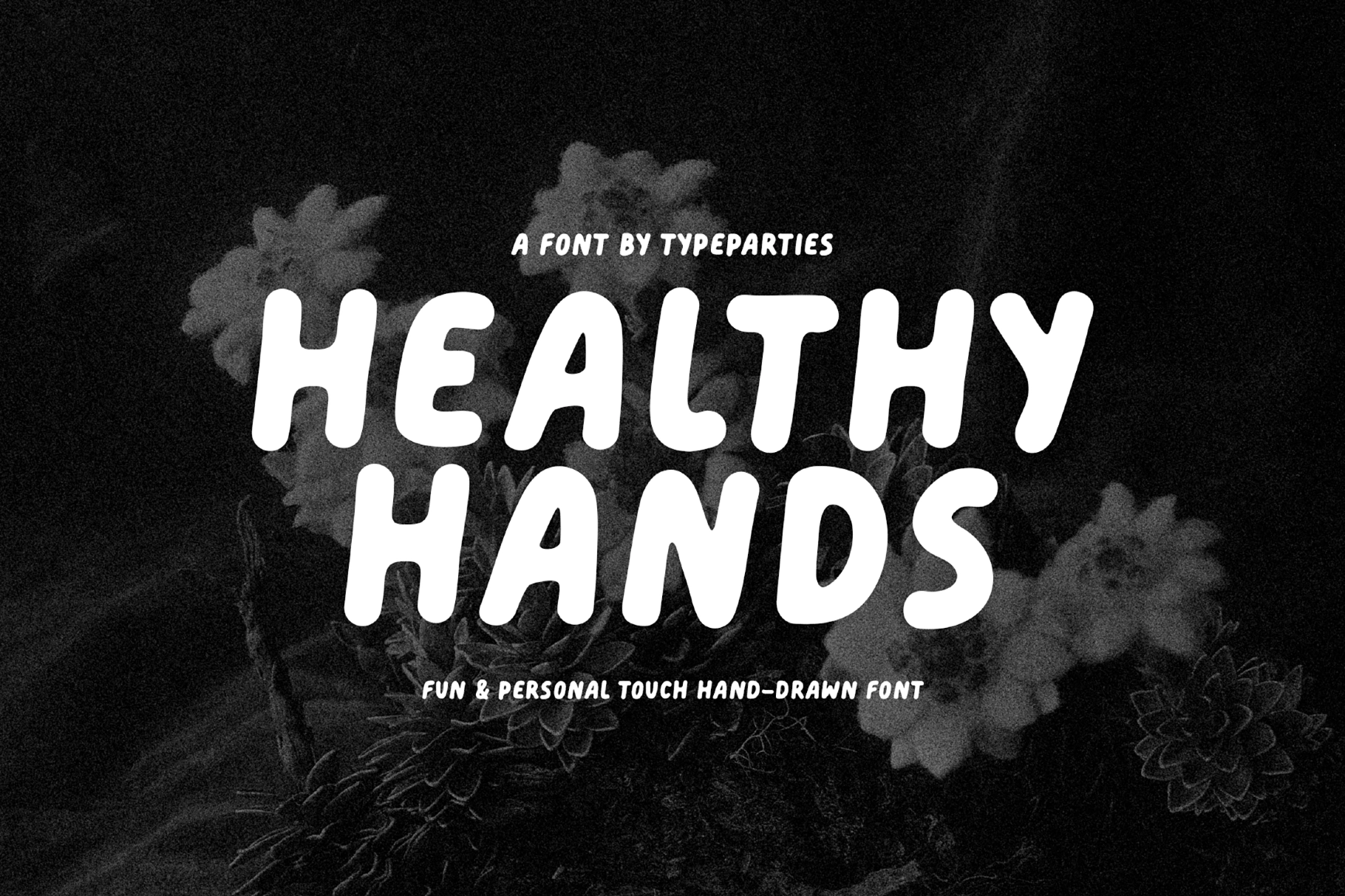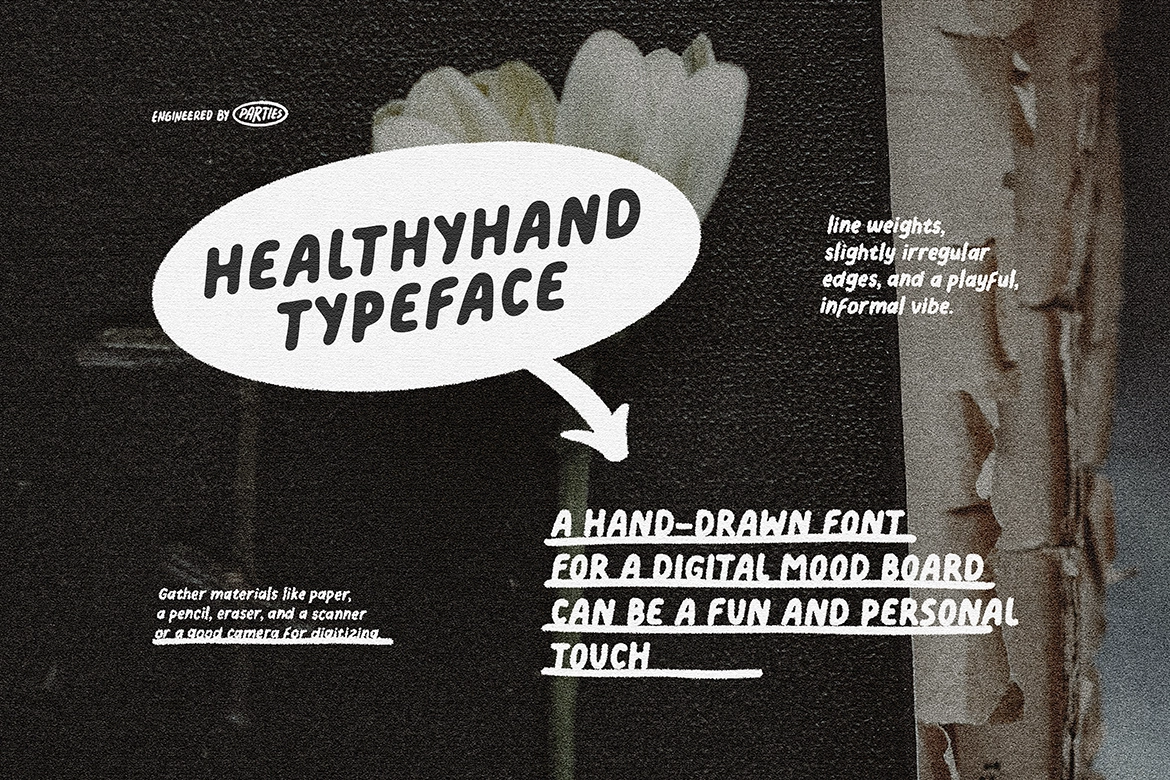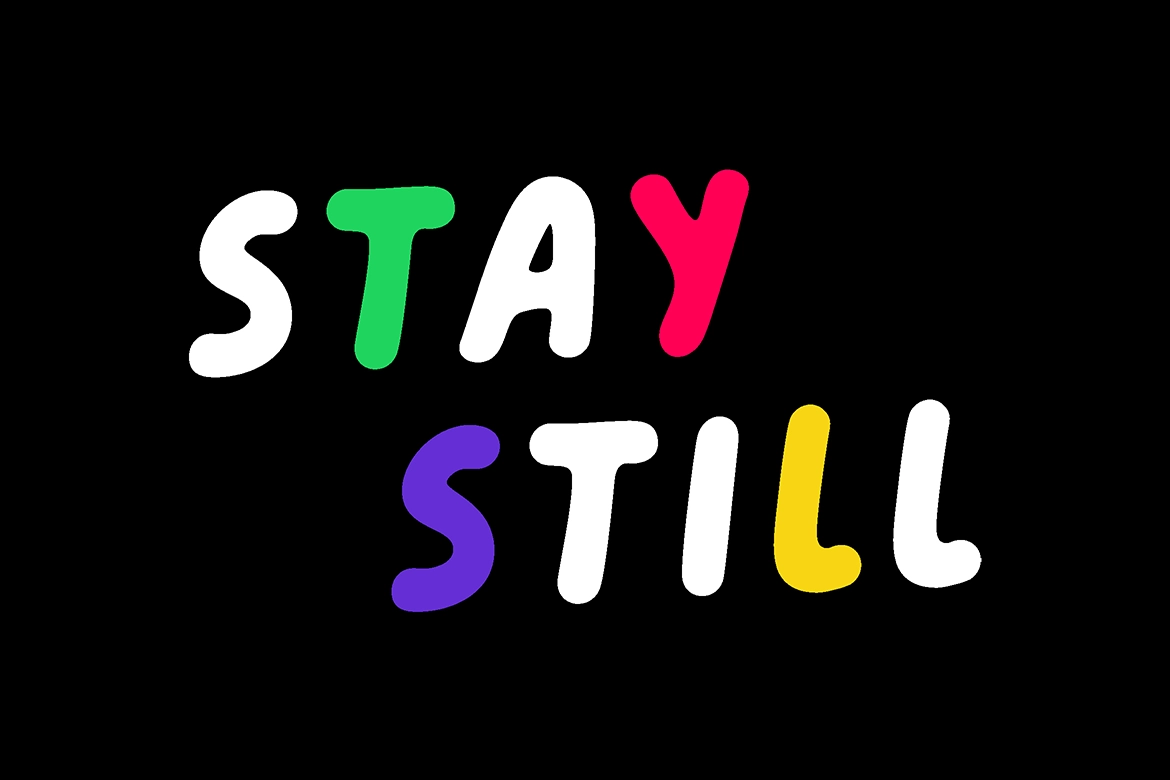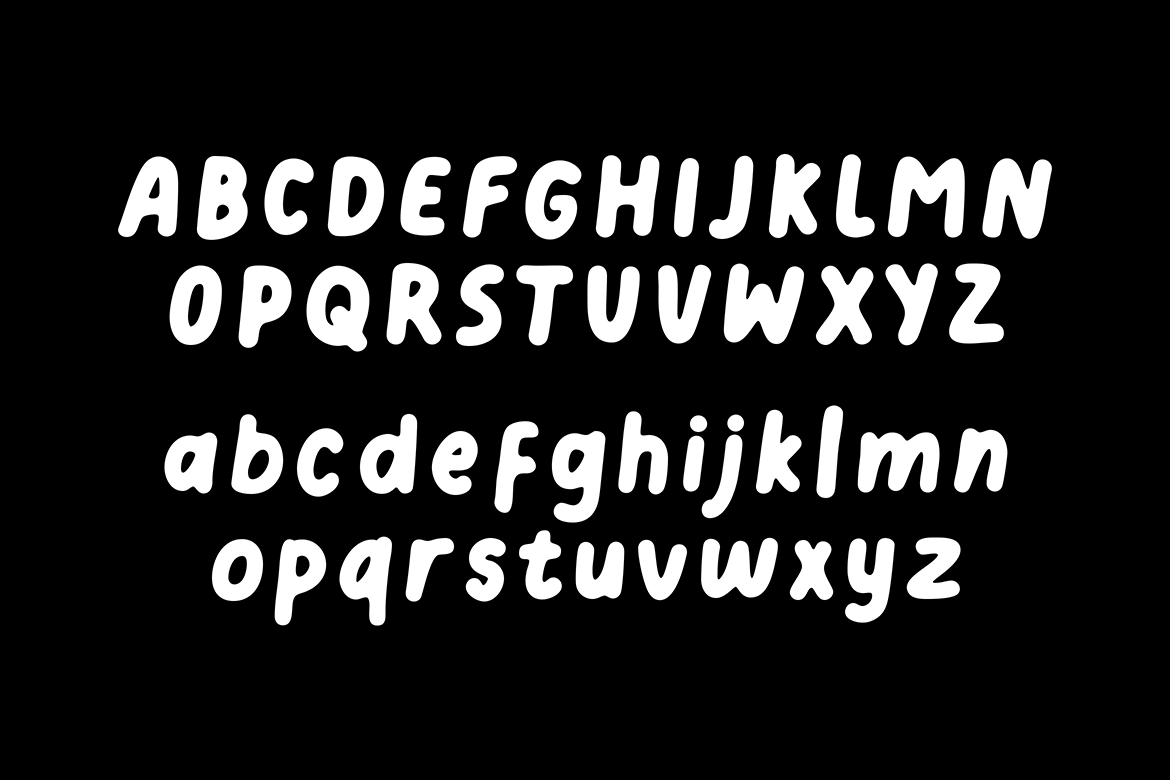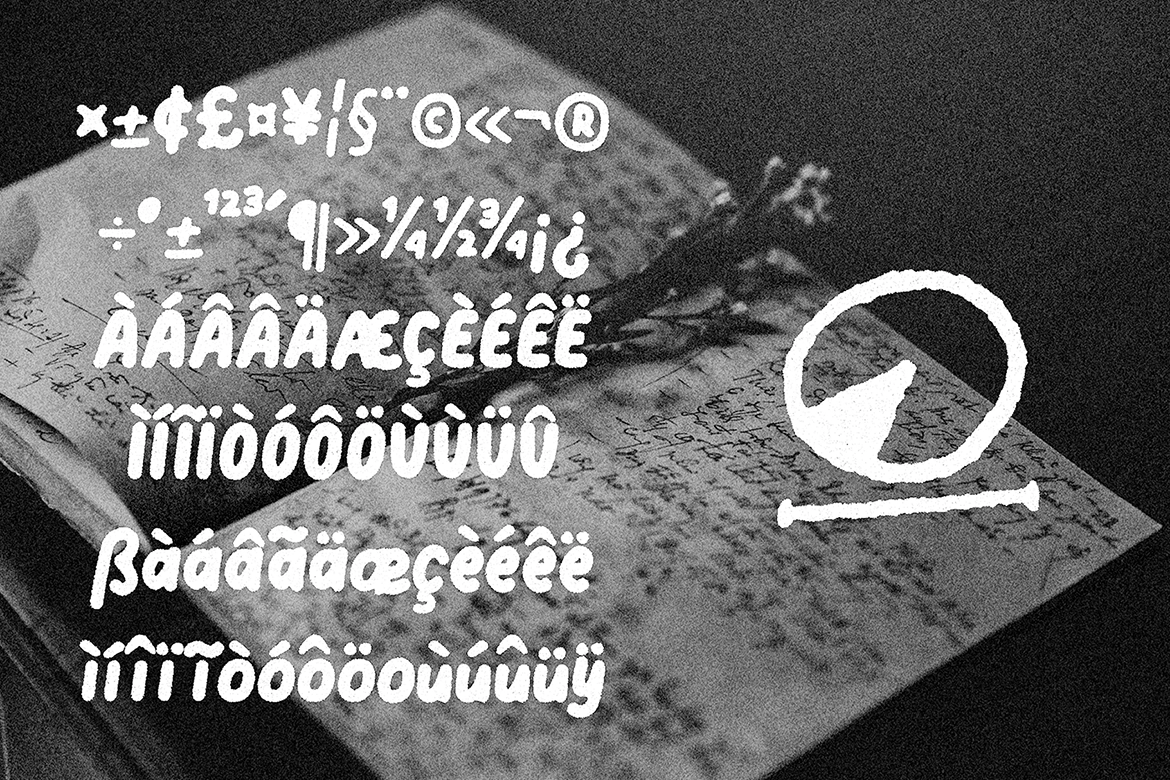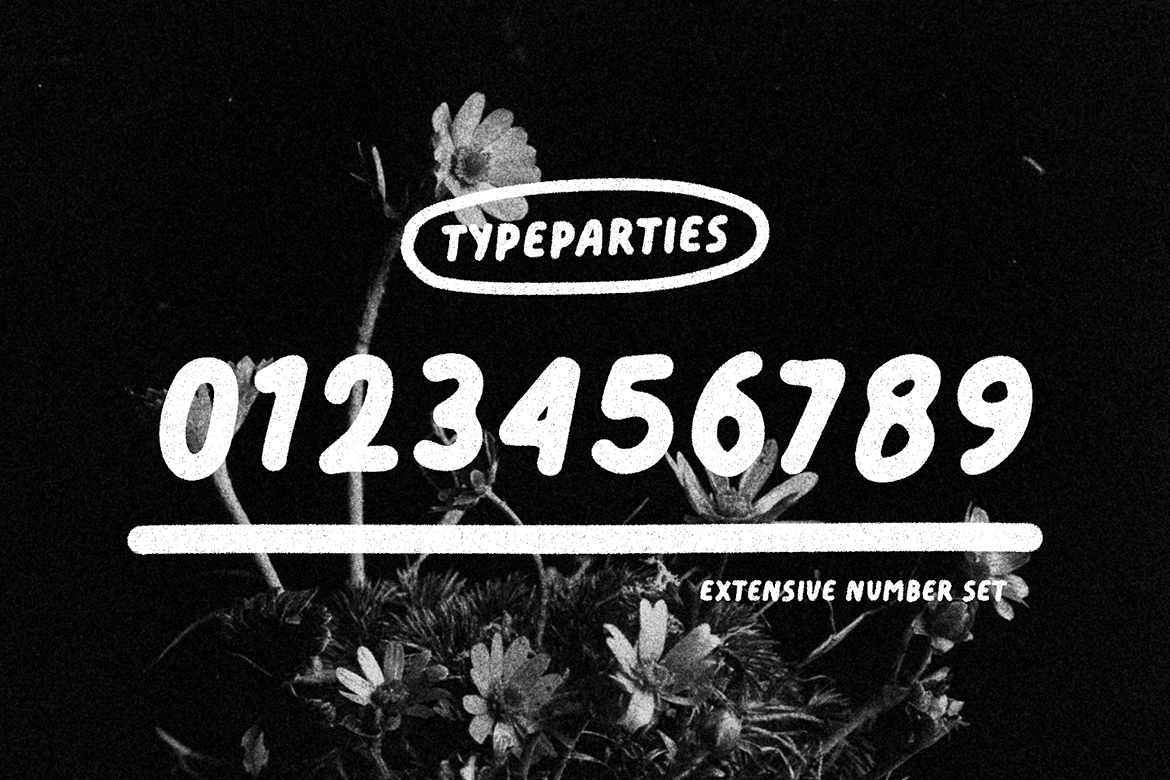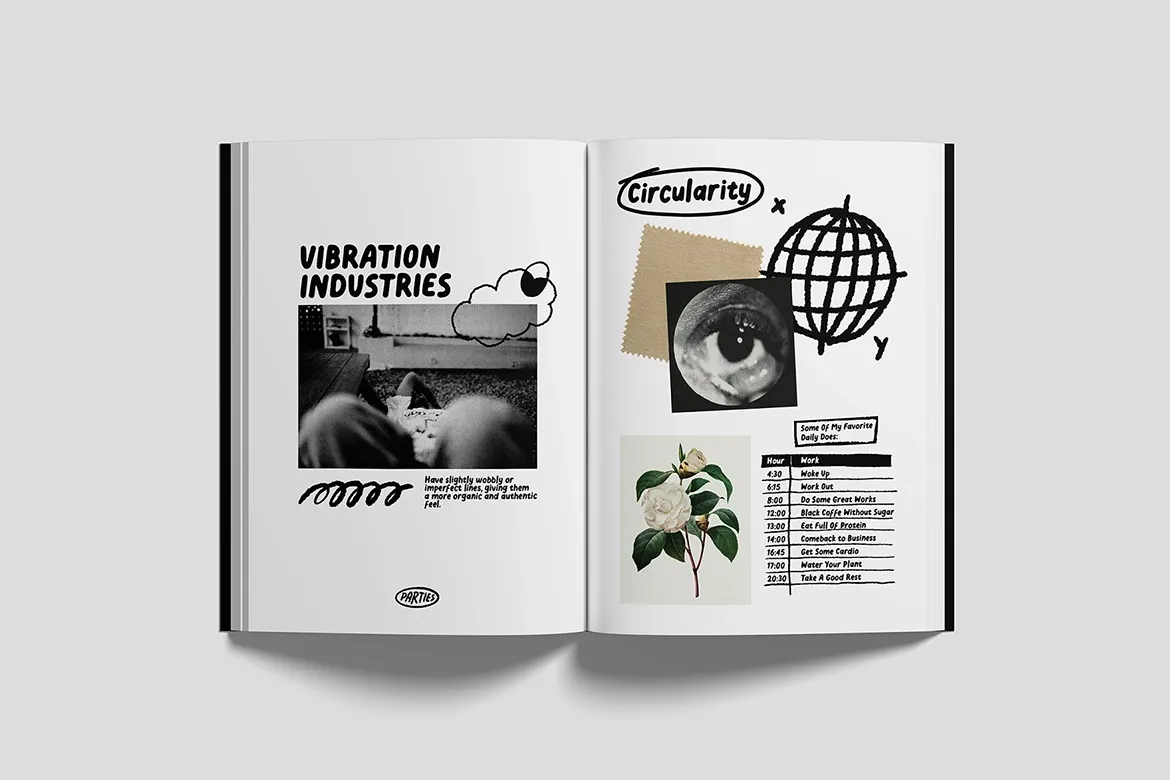
Healthy Hand - Bold Handwritten Display Font
This one is a playful hand-drawn font. It features rounded, bubbly letterforms that create a friendly and informal look. Healthy Hand adds a fun, personal touch to headings, packaging, and designs aimed at children or casual, lighthearted projects.